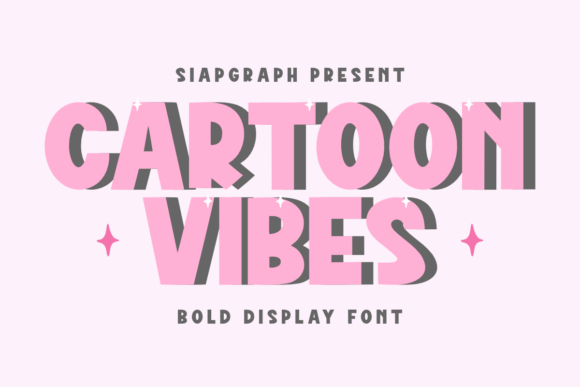
Discover the Playful World of Cartoon Vibes Font
Cartoon Vibes is a bold, playful display font that exudes a fun and energetic feel. Its chunky, high-impact letterforms with a subtle 3D shadow effect make it a standout choice for eye-catching designs. In this article, we’ll dive into the world of Cartoon Vibes, exploring its features, and how to make the most of this fantastic font.
- ✅ Fun and playful aesthetic: Cartoon Vibes is perfect for projects that require a joyful and whimsical touch.
- ✅ High-impact letterforms: The chunky design and subtle 3D shadow effect make it perfect for eye-catching designs.
- ✅ Versatile: Suitable for children’s books, comics, branding, social media, merchandise, posters, and more.
- ✅ Easy to read: Despite its playful nature, Cartoon Vibes remains clear and legible, even at smaller sizes.
- ⚠️ Limited use in formal contexts: Due to its playful nature, Cartoon Vibes might not be the best fit for formal or professional projects.
- ⚠️ Not ideal for body text: Its bold and chunky design makes it better suited for headings and titles rather than lengthy paragraphs.
The Story Behind Cartoon Vibes
Cartoon Vibes was designed with the intention of bringing a playful and joyful aesthetic to design projects. Its creator aimed to craft a font that would evoke a sense of happiness and creativity, making it perfect for children’s books, comics, and other playful projects.
| Font Name | Cartoon Vibes Font |
| Author | SiapGraph |
Q: What type of projects is Cartoon Vibes best suited for?
A: Cartoon Vibes is perfect for children’s books, comics, branding, social media, merchandise, posters, and any project that requires a playful and energetic feel.